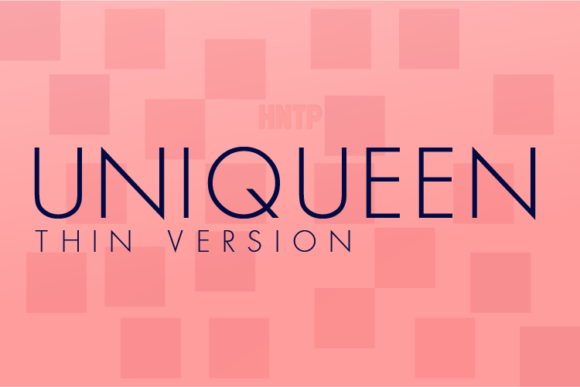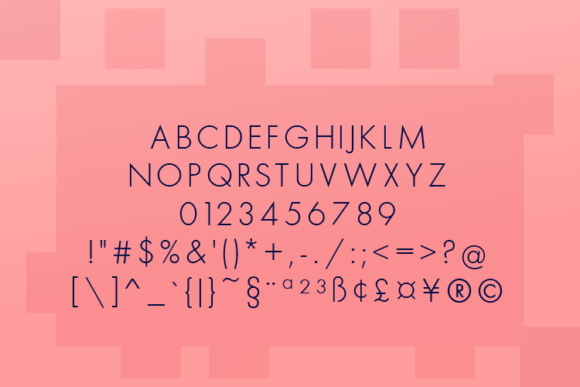
Uniqueen Thin Font
About Uniqueen Thin Font
Uniqueen is a geometric sans font with roman proportions. It has a serious but timeless look and makes an ideal font for corporate publishing, branding, wayfinding and complex technical information systems.